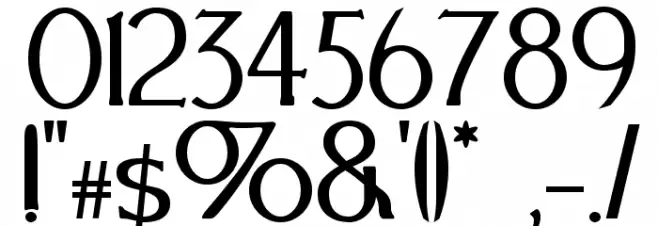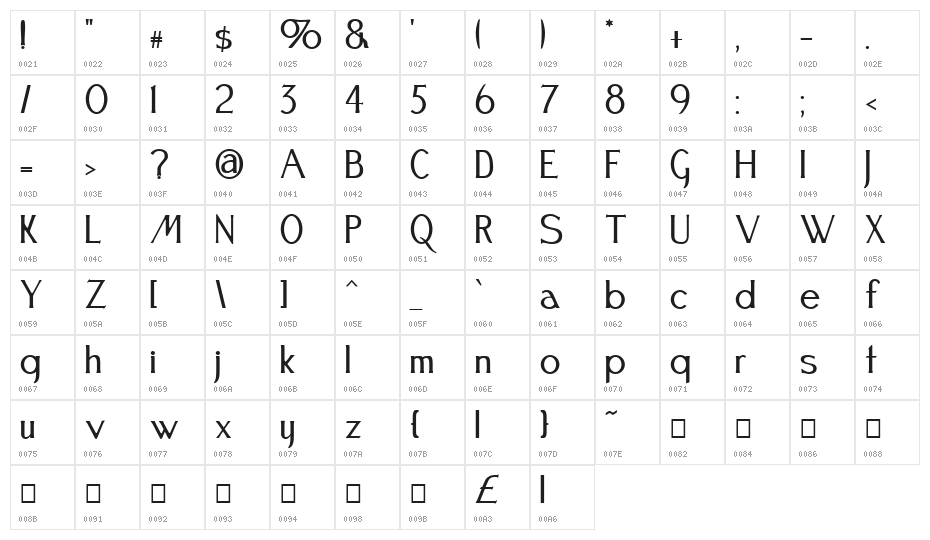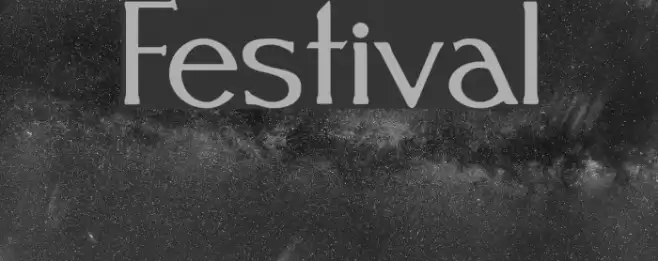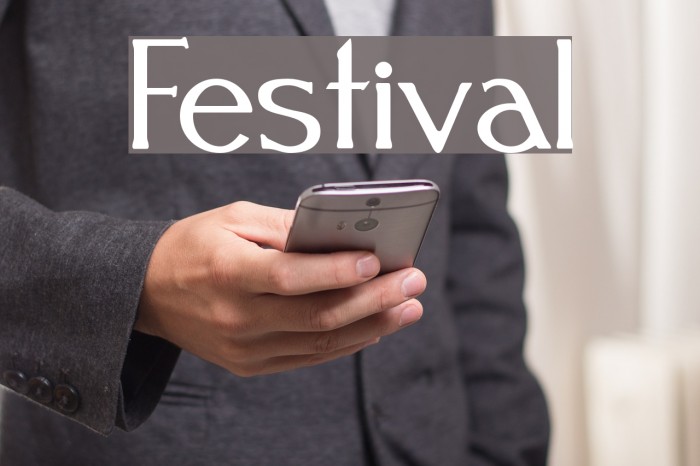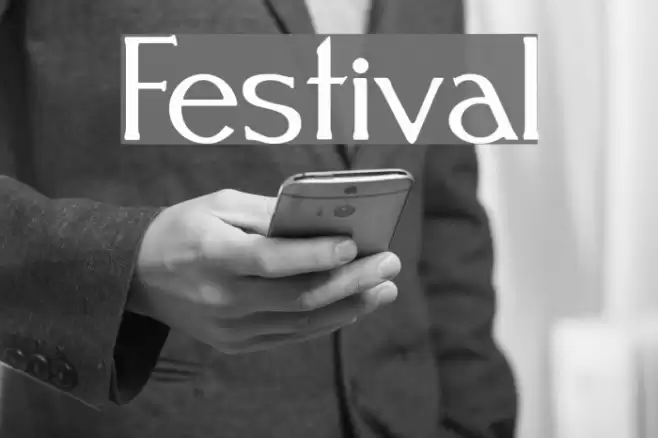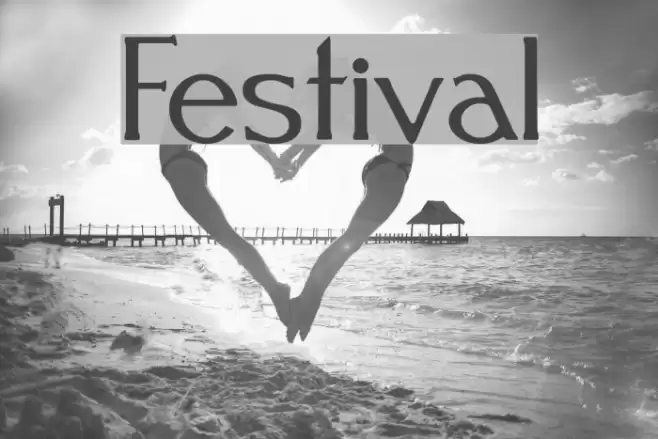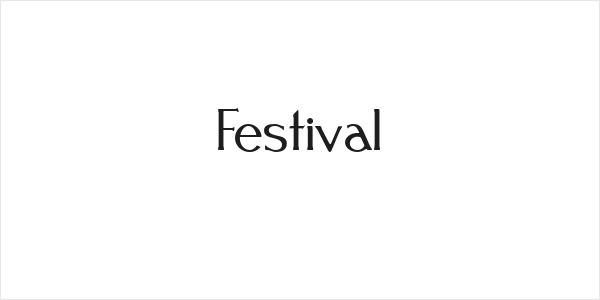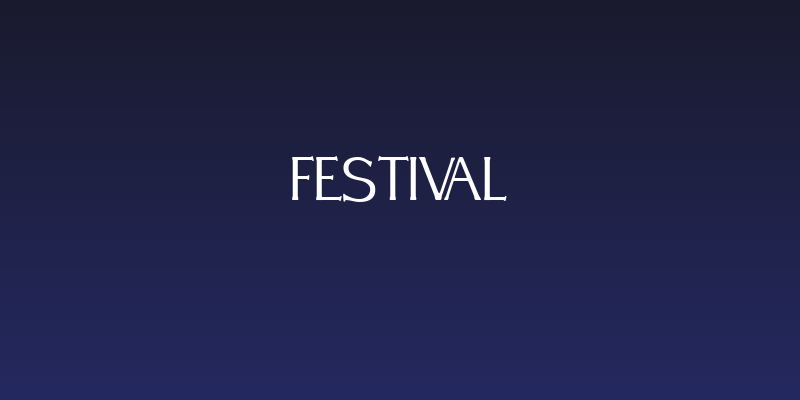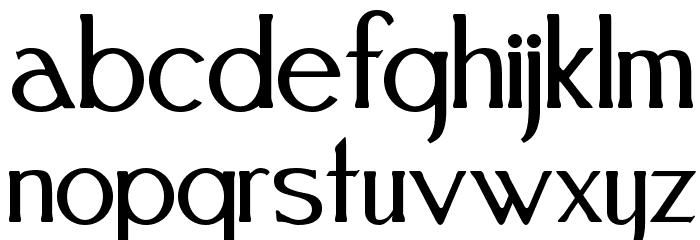
Festival Font
Festival Description
This font features a unique blend of modern and classic elements, characterized by its elegant and slightly elongated letterforms. The uppercase letters exhibit a distinct flair with subtle curves and sharp angles, giving them a sophisticated yet approachable appearance. The lowercase letters maintain a consistent style, with rounded edges that complement the uppercase set. Numbers are clear and legible, with a slight artistic touch that aligns with the overall design. Special characters are thoughtfully designed, maintaining the font's cohesive aesthetic. The font's overall style is both decorative and functional, making it suitable for a variety of applications.
| Proposed Projects | Ideal for branding, invitations, and editorial design where a touch of elegance is desired. |